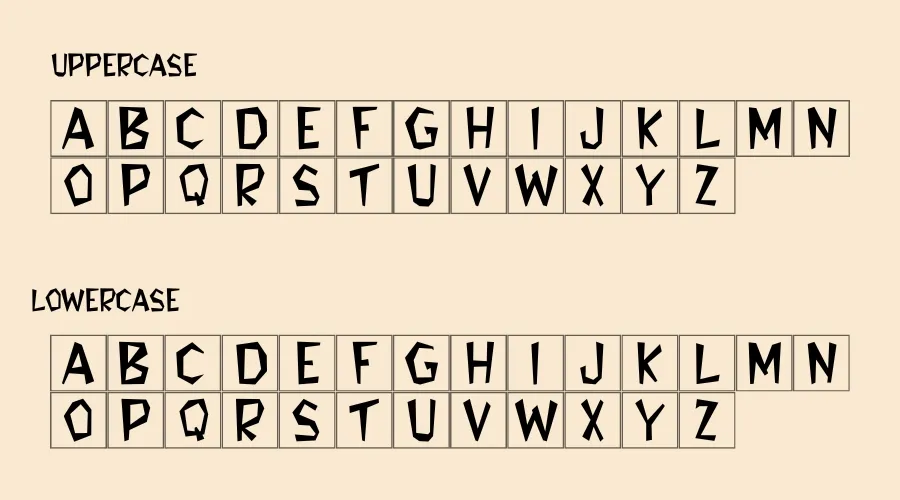
A famous typographic developer by the name of Peter S. Bryant presented the Flintstone Font.
It belongs to the classification of cartoon font family and has a unique texture that suits it for a mixture of designs and uses.
This font is ideal for all projects because of its copy-and-paste functionality. It is compatible with the Looney Tunes Font. There are various styles and weights of the typeface available. This font includes uppercase, and lowercase letters, symbols, numerals, digits, and punctuations.
It has many features that make it special, like its extensive range of glyphs. This typeface is multilingual and protects many extra languages, which is why it fast increased to prominence in the font society after being released. It works well with CSS and Adobe Photoshop.